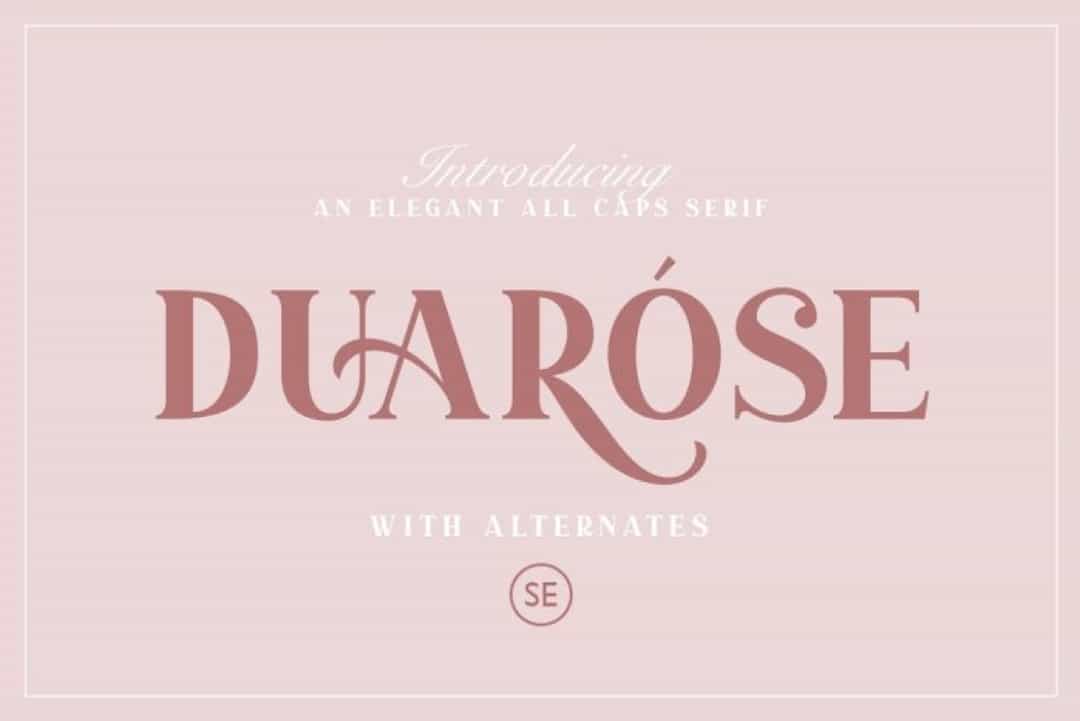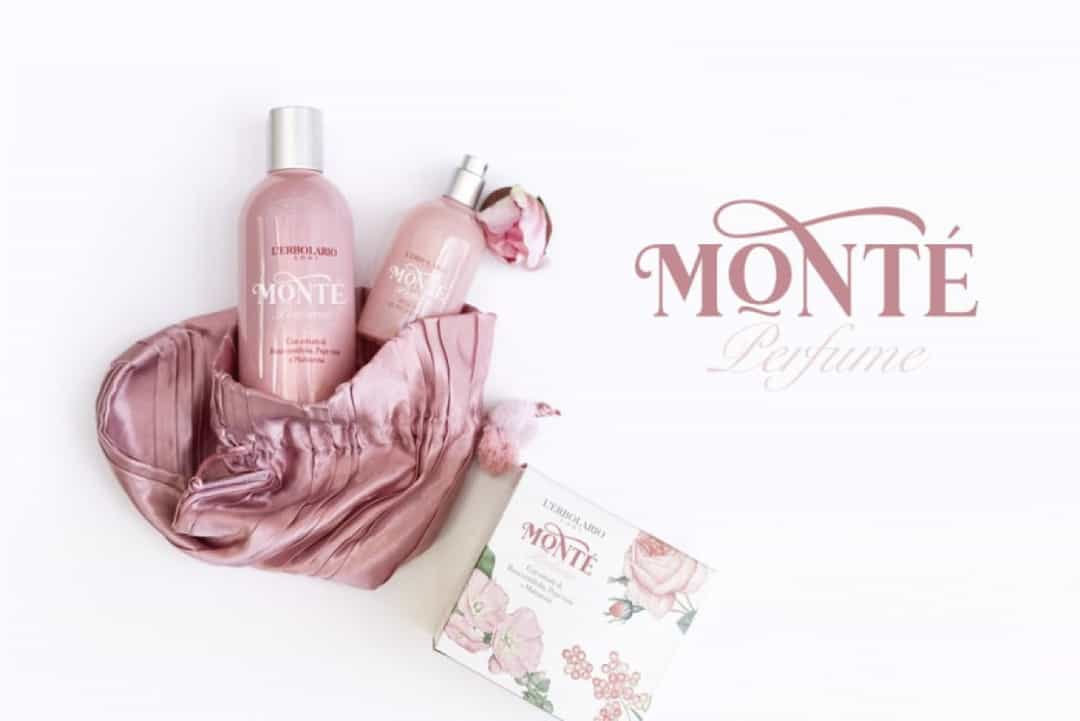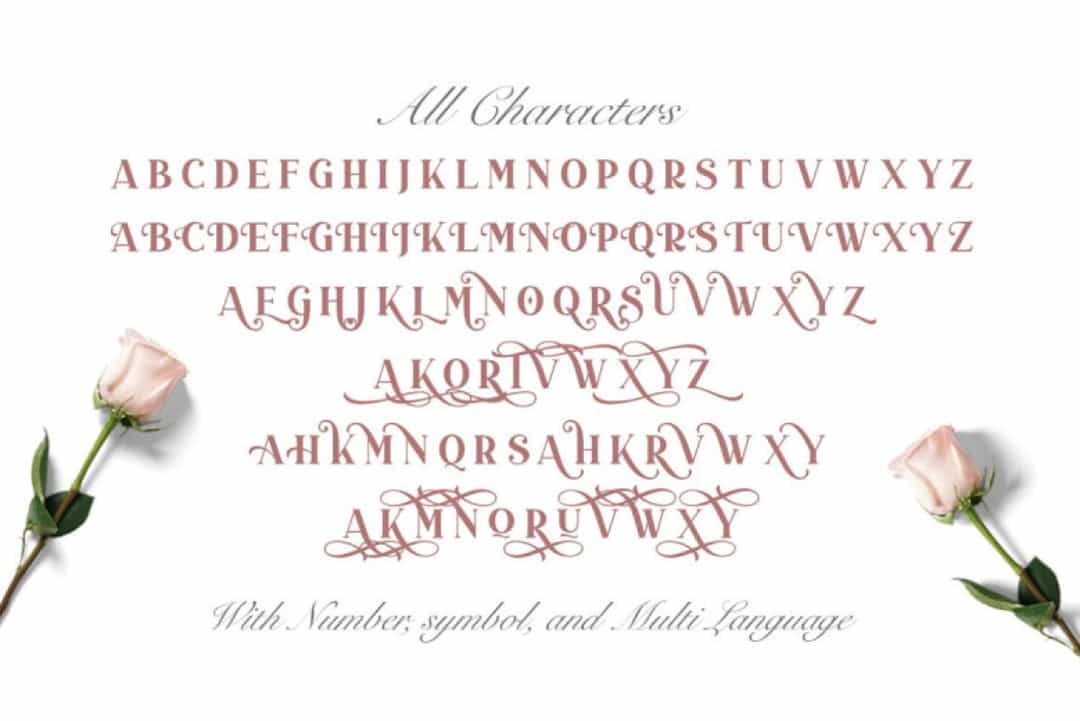
Duarose can be described as an elegant serif typeface featuring multiple alternative fonts! It boasts old-school beauty with six unique character styles for each character that will help make your logo or presentation extra stunning and stand out! Additionally, Duarose supports Multi Language support and PUA Coding!